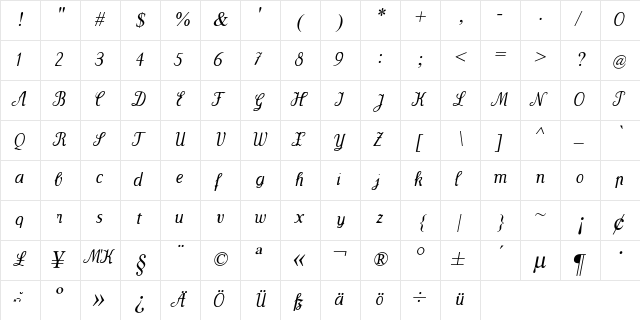
Wenceslas Medium Italic
Design Context for Wenceslas Typeface
Wenceslas is a composed and adaptable typeface that performs quietly and consistently across a wide range of design contexts. The slanted form adds forward momentum and visual energy.
Pro Tip: Try Wenceslas for annotation and caption copy alongside an upright companion — the contrast in angle creates a dynamic but ordered typographic system.